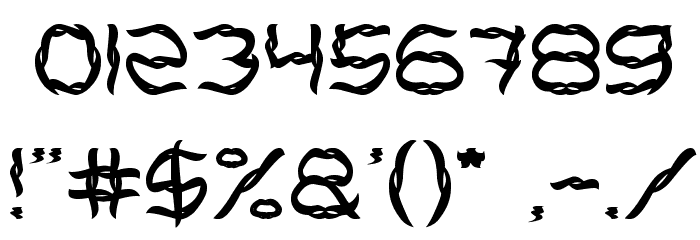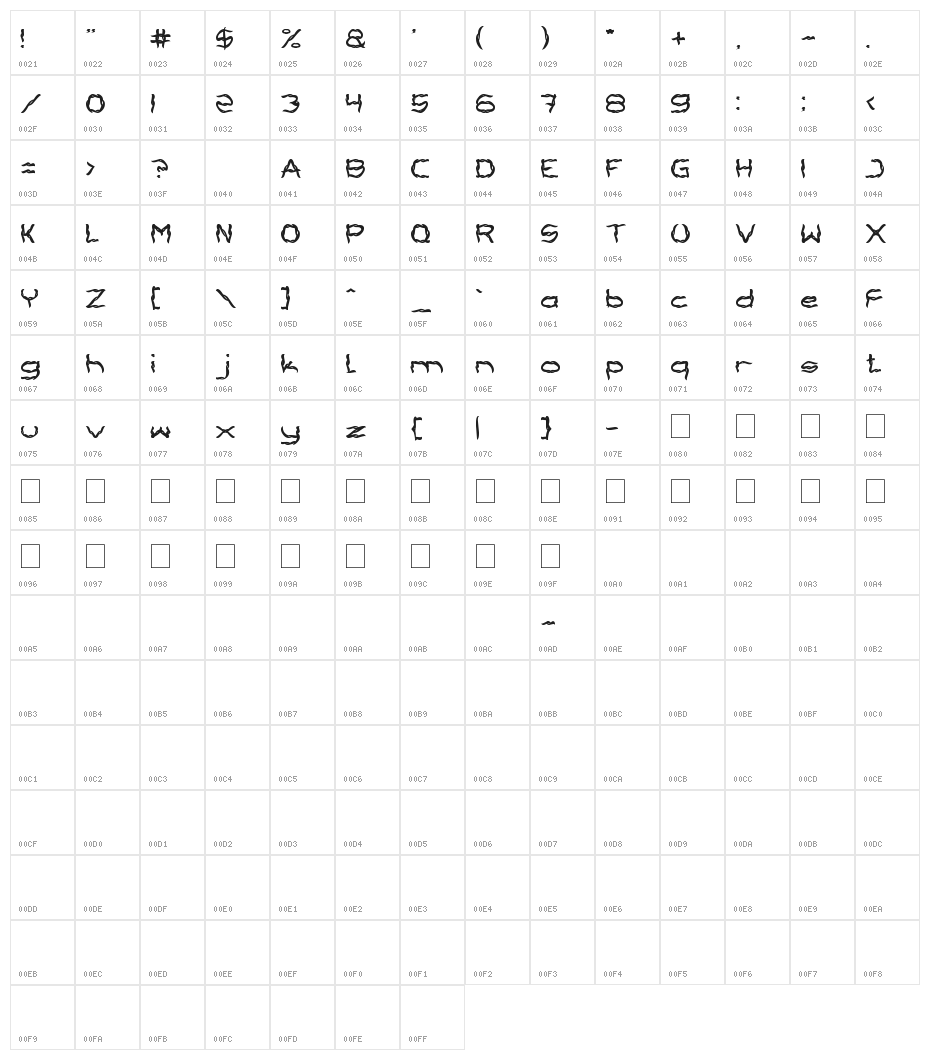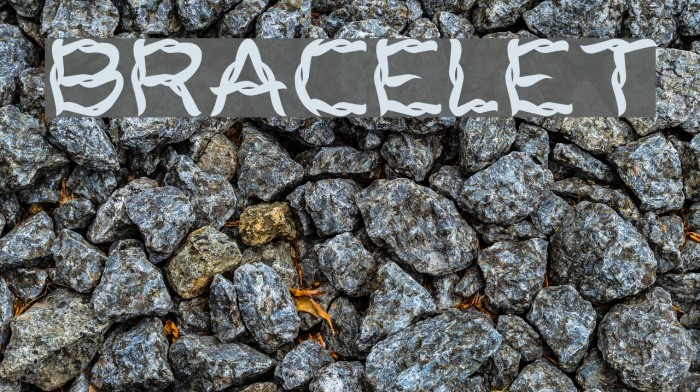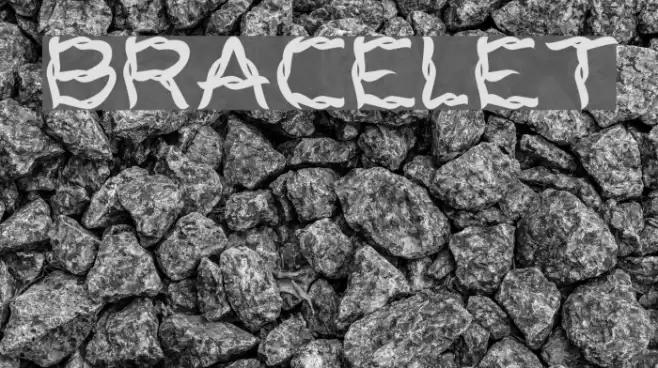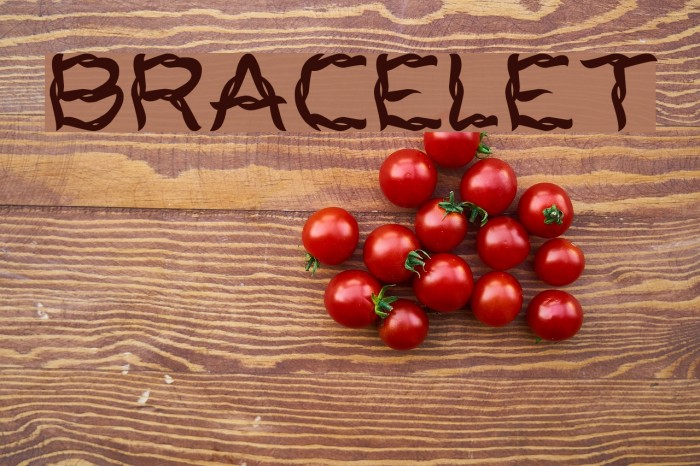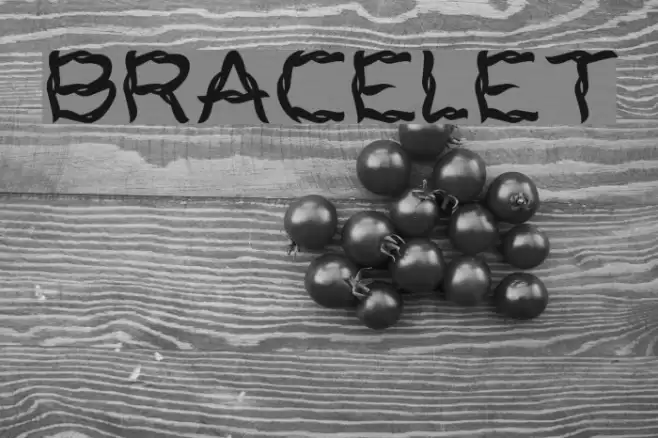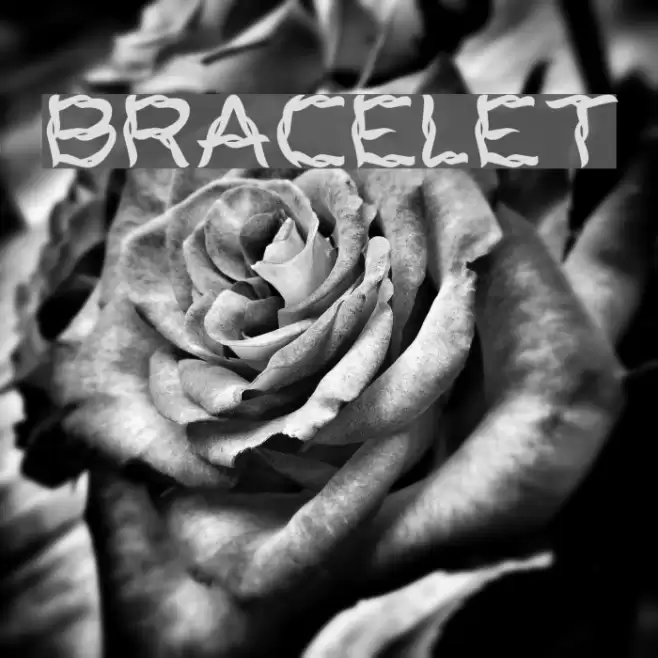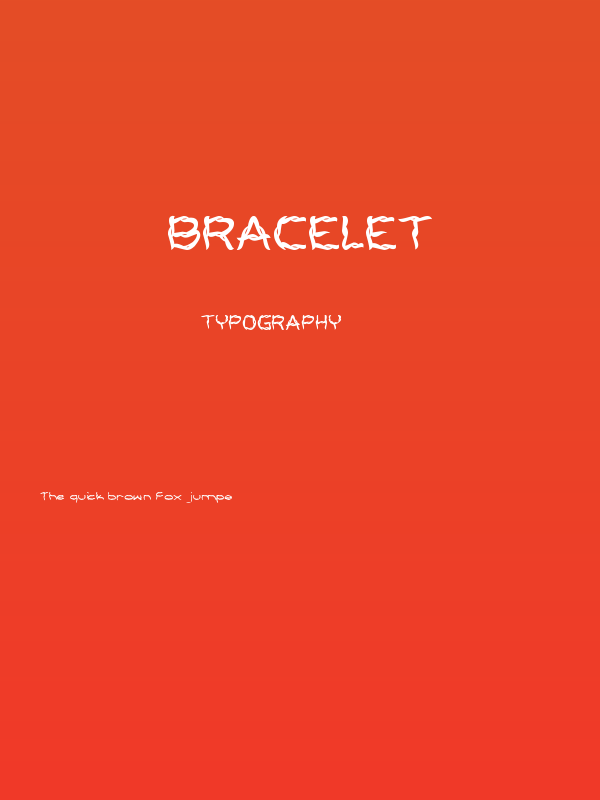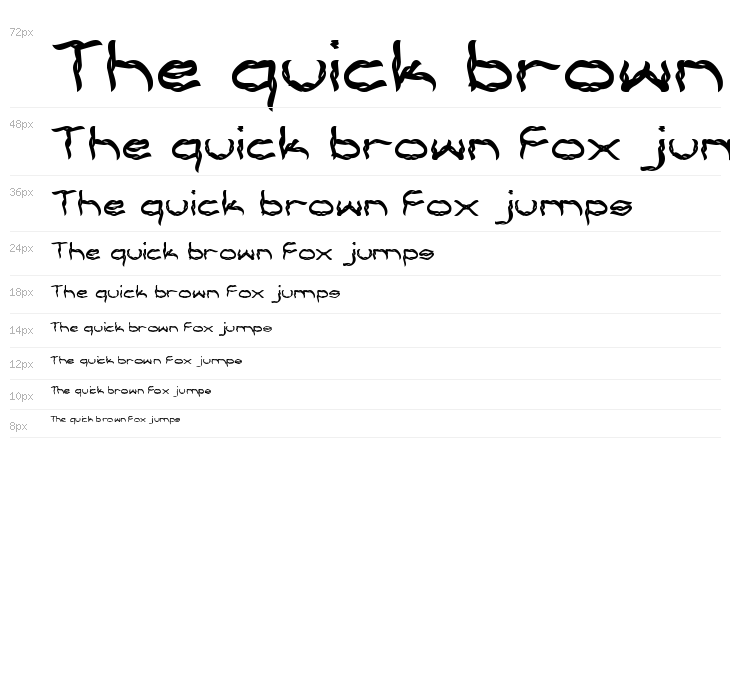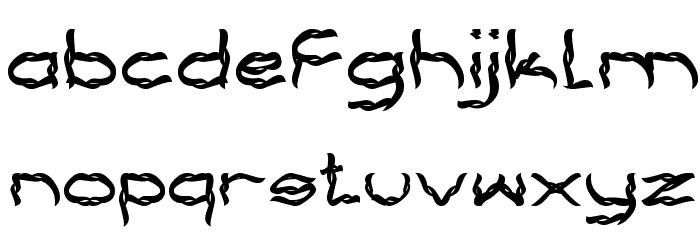
BRACELET Font
BRACELET Description
This font features a unique and decorative style, with each character appearing as if it is woven or twisted together, resembling a bracelet or chain. The letters have an organic, flowing appearance with irregular edges, giving them a handcrafted feel. The uppercase and lowercase letters maintain a consistent style, while the numbers and special characters follow the same intricate design. This font stands out due to its artistic and unconventional look, making it suitable for creative and bold design projects.
| Proposed Projects | Ideal for artistic projects, branding for jewelry or fashion, event invitations, and creative posters. |